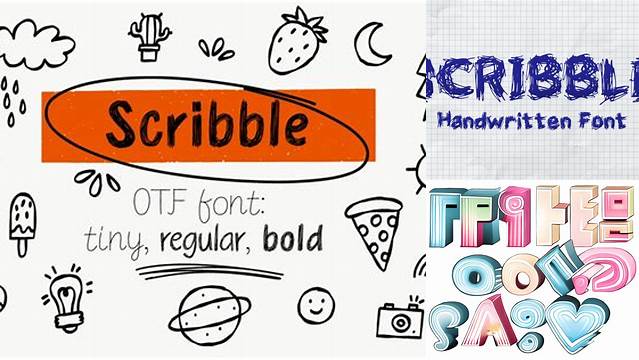
Scribble Fonts: Free Options & Design Tips
Are you looking to add a personal, hand-crafted touch to your design projects? Scribble fonts are the perfect solution! These unique typefaces mimic the look of handwriting, adding a playful and authentic feel to everything from logos and branding to invitations and social media graphics. Guys, whether you're a seasoned designer or just starting out, incorporating scribble fonts into your work can instantly elevate its visual appeal.
What are Scribble Fonts?
Scribble fonts, at their core, are typefaces designed to emulate the appearance of hand-drawn scribbles, doodles, or handwriting. Unlike traditional fonts that adhere to strict geometric forms and consistent stroke widths, scribble fonts embrace imperfections and irregularities. They often feature varying line thicknesses, uneven letterforms, and a generally whimsical aesthetic. This gives them a distinctly human and approachable feel, making them ideal for projects where you want to convey authenticity and personality.
The beauty of scribble fonts lies in their ability to bridge the gap between the digital and the handmade. In a world saturated with sleek, polished designs, a scribble font can stand out and capture attention. They evoke a sense of informality and playfulness, making them perfect for projects targeting a younger audience or those seeking a more relaxed and approachable vibe. Think about the impact of using a scribble font for a children's book cover, a blog post about creative hobbies, or even a quirky logo for a small business. The possibilities are endless!
When choosing a scribble font, consider the overall tone and message you want to convey. Some scribble fonts are more whimsical and playful, while others have a more refined and elegant feel. Some might even mimic the look of a messy, energetic scrawl, while others resemble neat, cursive handwriting. The key is to find a font that complements your design and reinforces your brand identity. For instance, a bold, chunky scribble font might be perfect for a street art-inspired project, while a delicate, looping script could be ideal for a wedding invitation.
Experiment with different scribble fonts and see how they interact with other design elements. Try pairing a scribble font with a clean, sans-serif typeface for a contrasting and modern look. Or, use a scribble font as a headline and complement it with a more legible body text font. Don't be afraid to play around with different sizes, weights, and colors to achieve the desired effect. Remember, the goal is to create a visually appealing and engaging design that effectively communicates your message. So, embrace the imperfections, have fun with the process, and let your creativity flow!
Why Use Scribble Fonts?
Why should you consider using scribble fonts in your designs, you ask? Well, guys, the reasons are numerous! First and foremost, scribble fonts add a unique and personal touch to your projects that can be hard to achieve with more traditional typefaces. They instantly inject character and warmth, making your designs feel more human and approachable. In a world dominated by digital perfection, the inherent imperfections of a scribble font can be incredibly refreshing and captivating.
Think about the impact of using a scribble font for branding materials. A logo or website header featuring a well-chosen scribble font can help your brand stand out from the crowd and convey a sense of authenticity and creativity. It can signal to your audience that you're not afraid to be different and that you value originality. For small businesses, especially those in creative industries like art, design, or handmade goods, a scribble font can be a powerful tool for building brand recognition and connecting with customers on a personal level.
Beyond branding, scribble fonts are also fantastic for a wide range of other applications. Consider using them for invitations, greeting cards, and social media graphics. They're perfect for adding a touch of whimsy and playfulness to your designs, making them ideal for birthday parties, baby showers, or any event where you want to create a fun and informal atmosphere. Scribble fonts can also be used effectively in educational materials, particularly for younger children, as they can make learning more engaging and less intimidating.
Scribble fonts excel at conveying specific emotions and tones. Depending on the style of the font, you can evoke feelings of playfulness, excitement, nostalgia, or even a touch of rebelliousness. A bold, messy scribble font might be perfect for a rock and roll poster, while a delicate, cursive scribble font could be ideal for a romantic letter. The key is to choose a font that aligns with the overall message and mood of your design. Experimenting with different styles can help you discover the perfect scribble font for your project.
Another great aspect of scribble fonts is their versatility. They can be used in a variety of design styles, from minimalist and modern to vintage and rustic. They pair well with both clean, geometric fonts and more ornate, decorative typefaces. Don't be afraid to mix and match different fonts to create a unique and eye-catching composition. Just remember to maintain a sense of balance and harmony in your design. So, if you're looking for a way to add personality, warmth, and a touch of the unexpected to your designs, scribble fonts are definitely worth exploring. They're a fun and versatile tool that can help you create truly memorable and impactful visuals.
Remember to consider the legibility of your chosen font and use it strategically, pairing it with cleaner typefaces for optimal impact. Explore the vast resources available online, from Google Fonts to DaFont, to discover a treasure trove of free scribble fonts. With a little experimentation and a keen eye for design, you can effectively incorporate these playful typefaces into your projects and create visually stunning and engaging results. So, guys, embrace the imperfections, let your creativity flow, and start scribbling your way to design success!